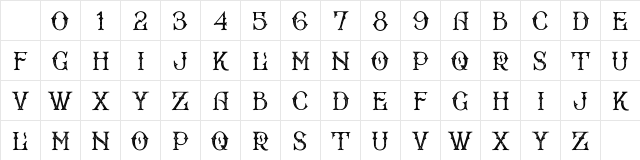
Bradford is a composed and adaptable typeface that performs quietly and consistently across a wide range of design contexts.
Pro Tip: Use Bradford in both headline and body roles to test its range before committing to a single application.